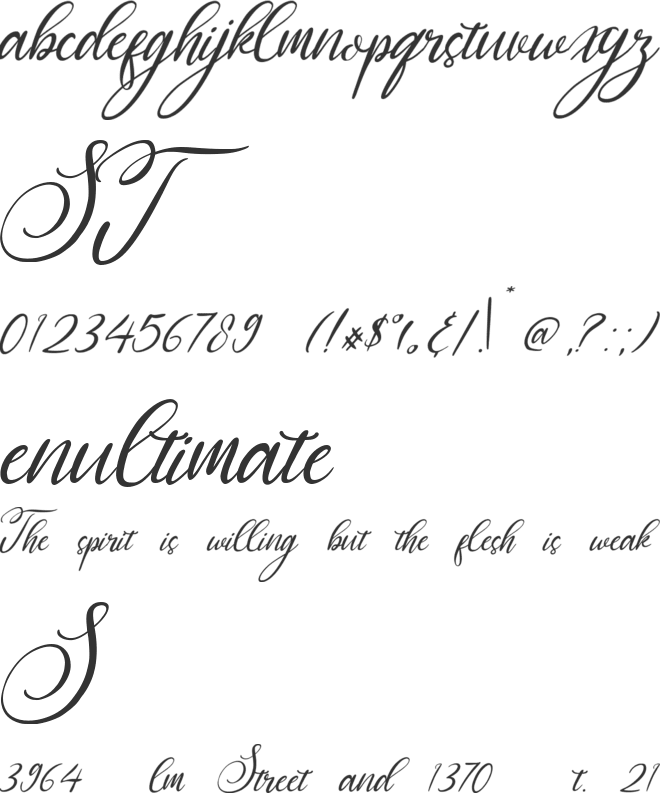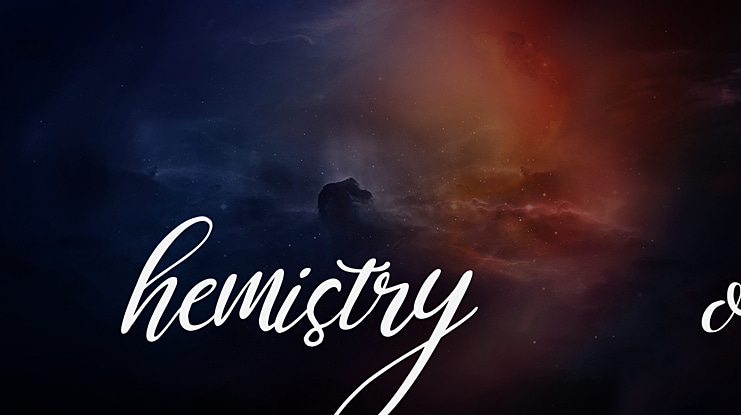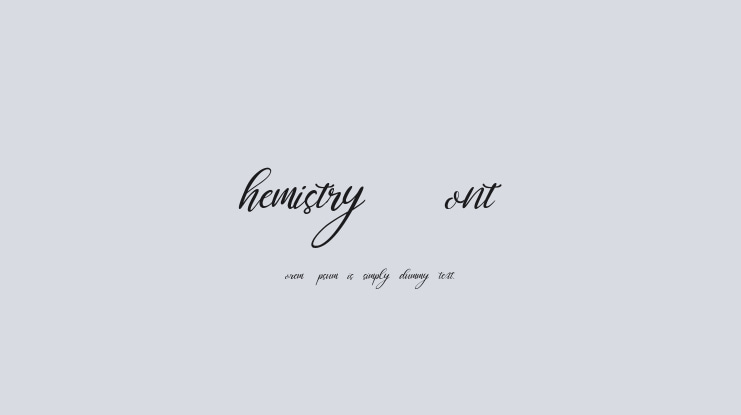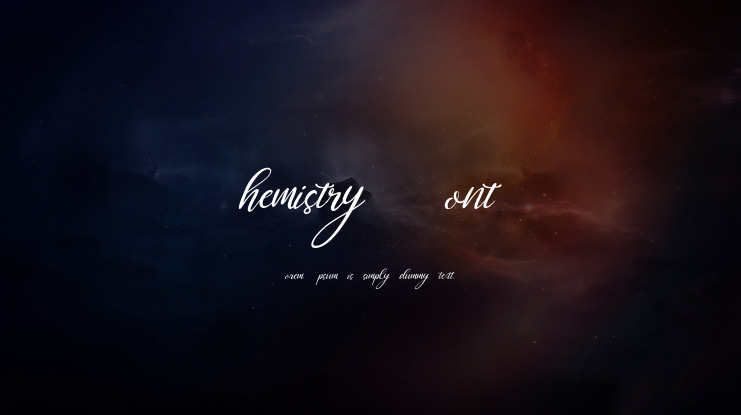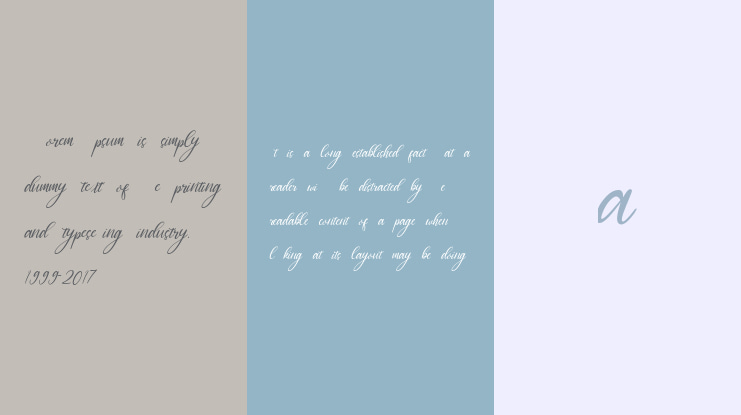
Chemistry Font
Chemistry font is of a kind handwritten calligraphy with new and modern hand strokes.
This typeface has been added with various alternative characters. This type of writing is perfect for logos, fashion, stationery, magazines, menus, books, invitations, greeting cards, packaging, labels, clothing, marketing, business cards, etc.